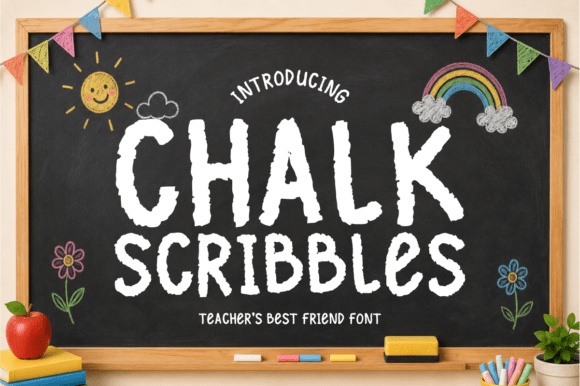
Adenman Posted July 7 Share Posted July 7 ✨ Chalk Scribbles – Teacher’s Best Friend Font ✨ Hello, awesome teachers, crafters, and creative souls! 🍎👋 Welcome the nostalgic warmth of the classroom into your design projects with Chalk Scribbles, the ultimate chalkboard-inspired display font! 📝✨ Beautifully textured to mimic the organic feel of real chalk on a blackboard, Chalk Scribbles features a bold, hand-drawn look with delightfully imperfect, sketchy edges. It’s warm, organic, and filled with a friendly personality that makes it the perfect companion for anything related to teaching, learning, and home-style crafting. Give your projects that authentic “written-by-hand” charm instantly! 🎨🌈 Giveaway Link –> https://www.creativefabrica.com/product/chalk-scribbles/ vhick and MrZeb 2 Link to comment Share on other sites More sharing options...